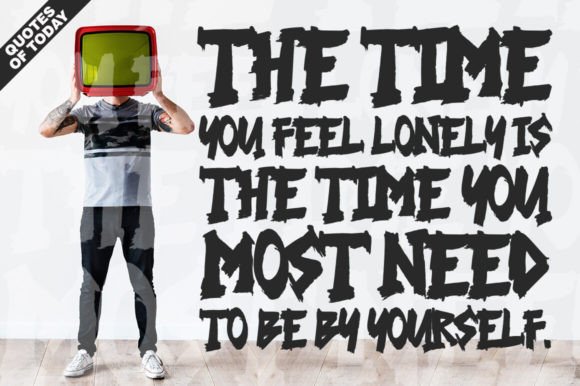
Bring Me The Horizon is a handwritten brush script font that looks and feels like it was written on a marker board. Perfect for greeting cards, invitations, and motivational quotes, this font should help you express all of your best messages!
Bring Me the Horizon Font